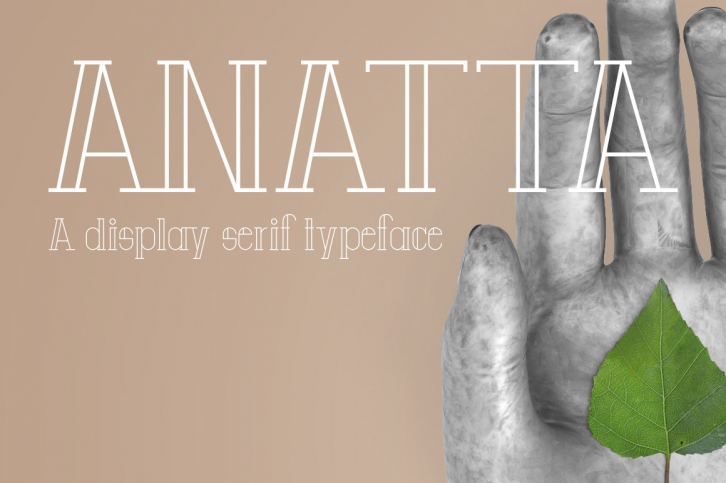
Anatta is a sans serif mini-family designed with geometric precision.
The name Anatta was inspired by the Buddhist philosophy that refers to the doctrine of “non-self”; that there is no unchanging, permanent self, soul or essence in living beings.